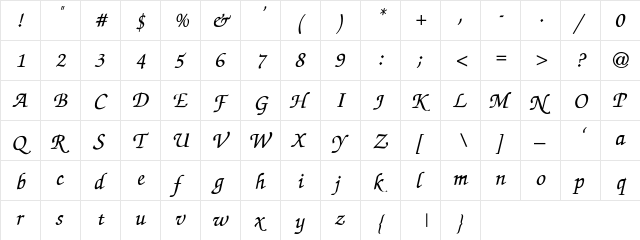
zapfchancery-Thin-Italic Regular
Design Context for zapfchancery-Thin-Italic Typeface
zapfchancery-Thin-Italic takes a measured approach to typography — its balanced proportions and neutral character make it a reliable workhorse for both digital and print work. The slanted form adds forward momentum and visual energy. The delicate stroke weight brings airiness and refinement to layouts.
Pro Tip: Try zapfchancery-Thin-Italic for annotation and caption copy alongside an upright companion — the contrast in angle creates a dynamic but ordered typographic system.